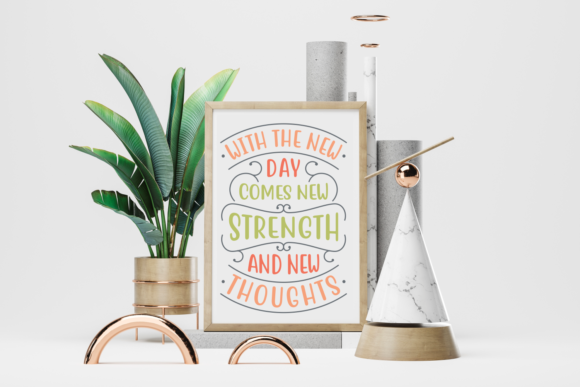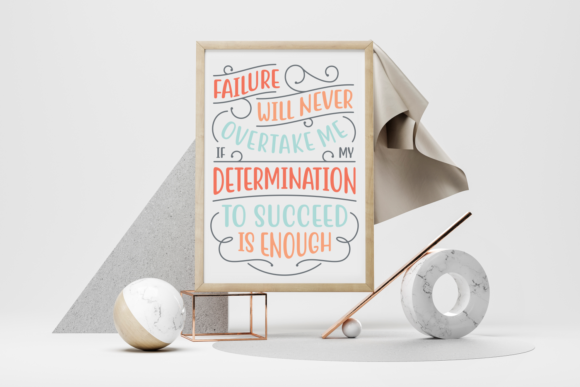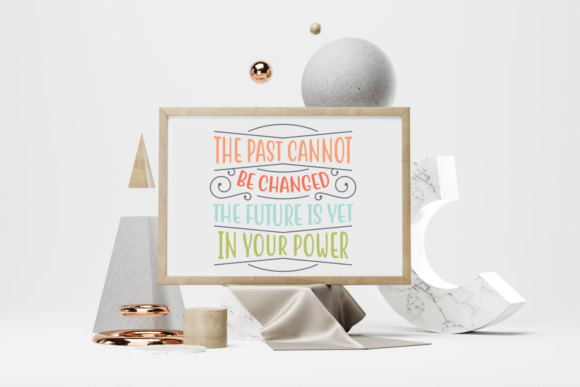
Quotable Font
About Quotable Font
The Quotable is a cute script font. It has neat and smooth letters with a great readability. The two included styles will both add a fun, yet striking look to your designs.